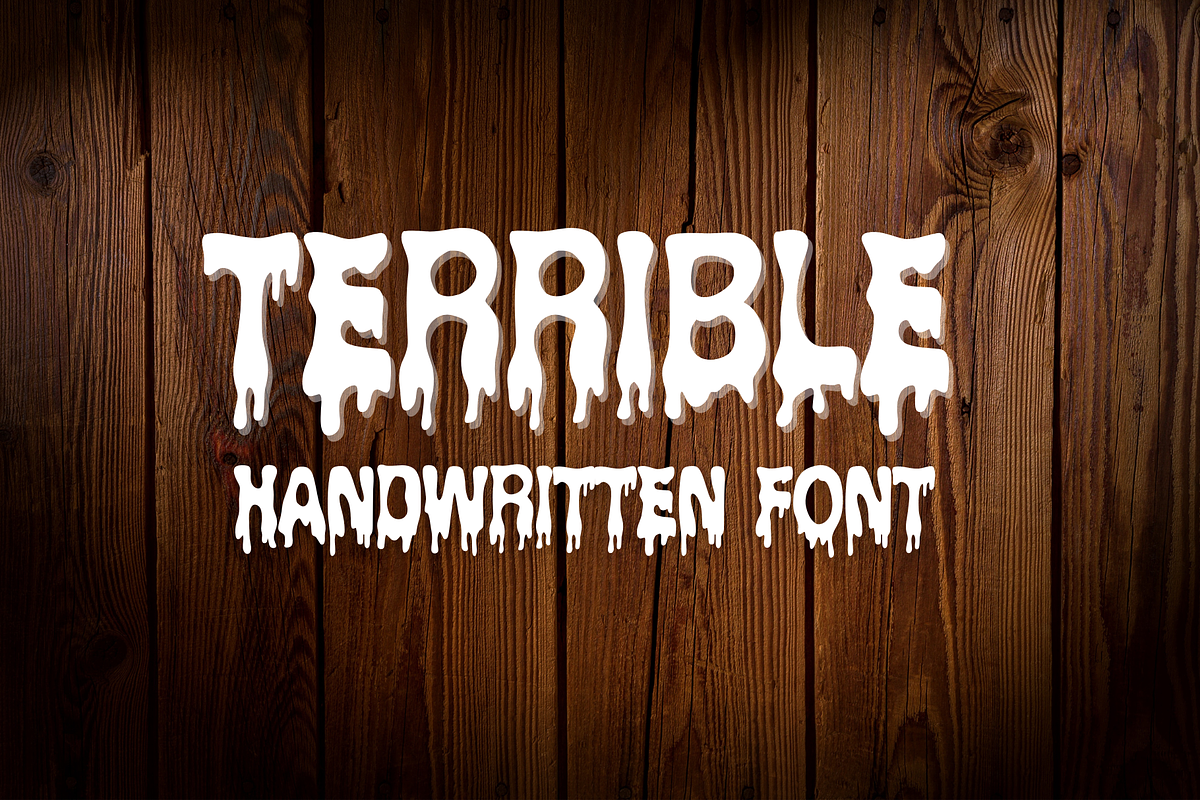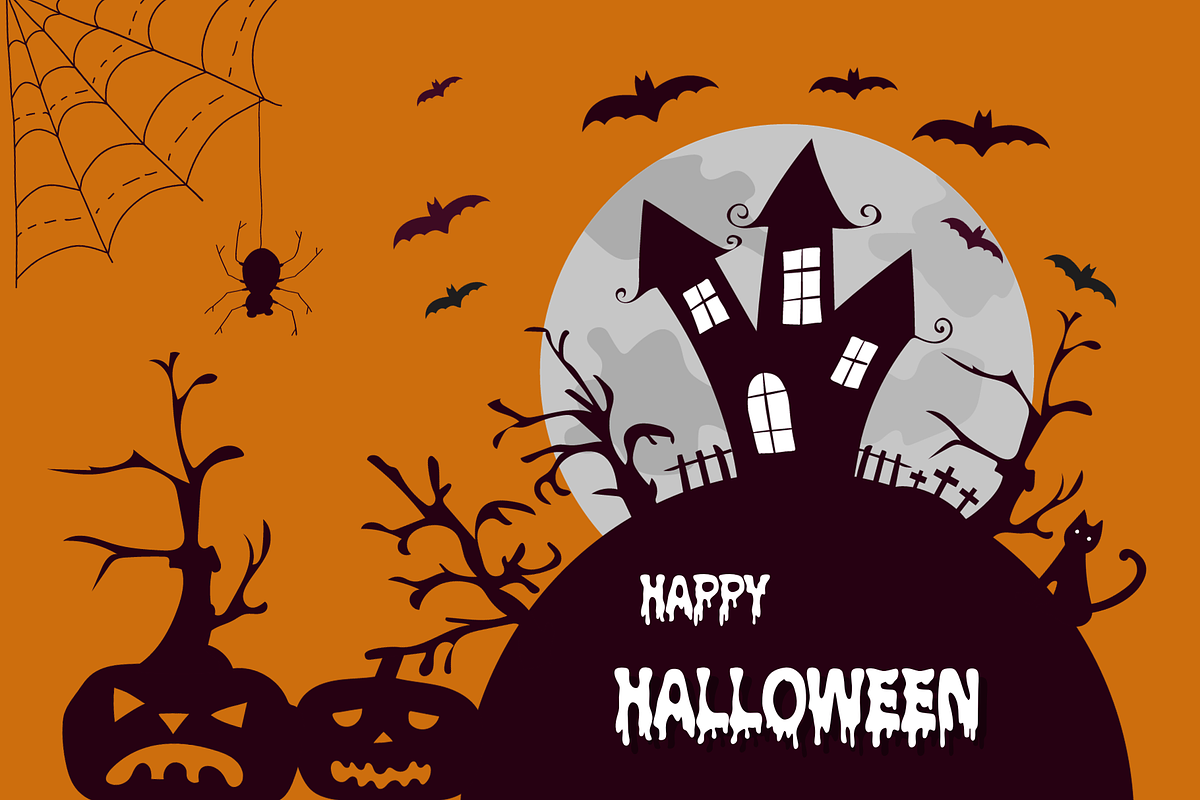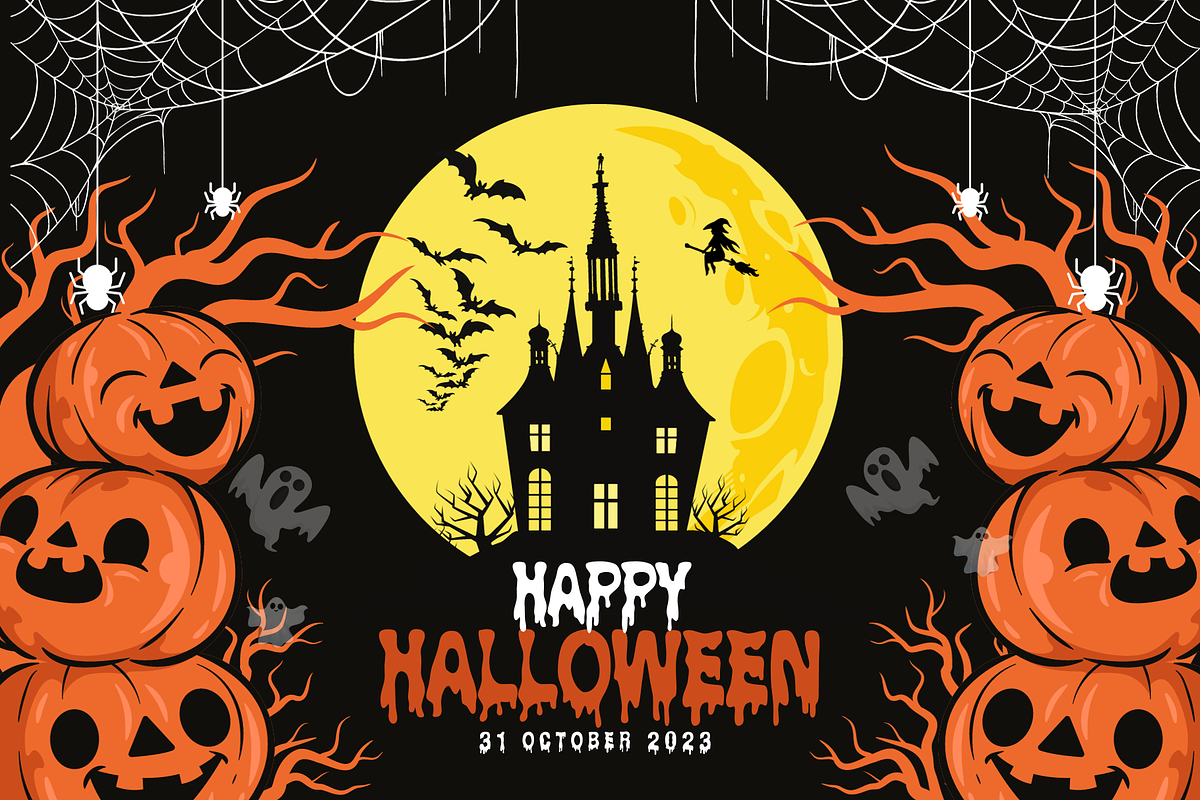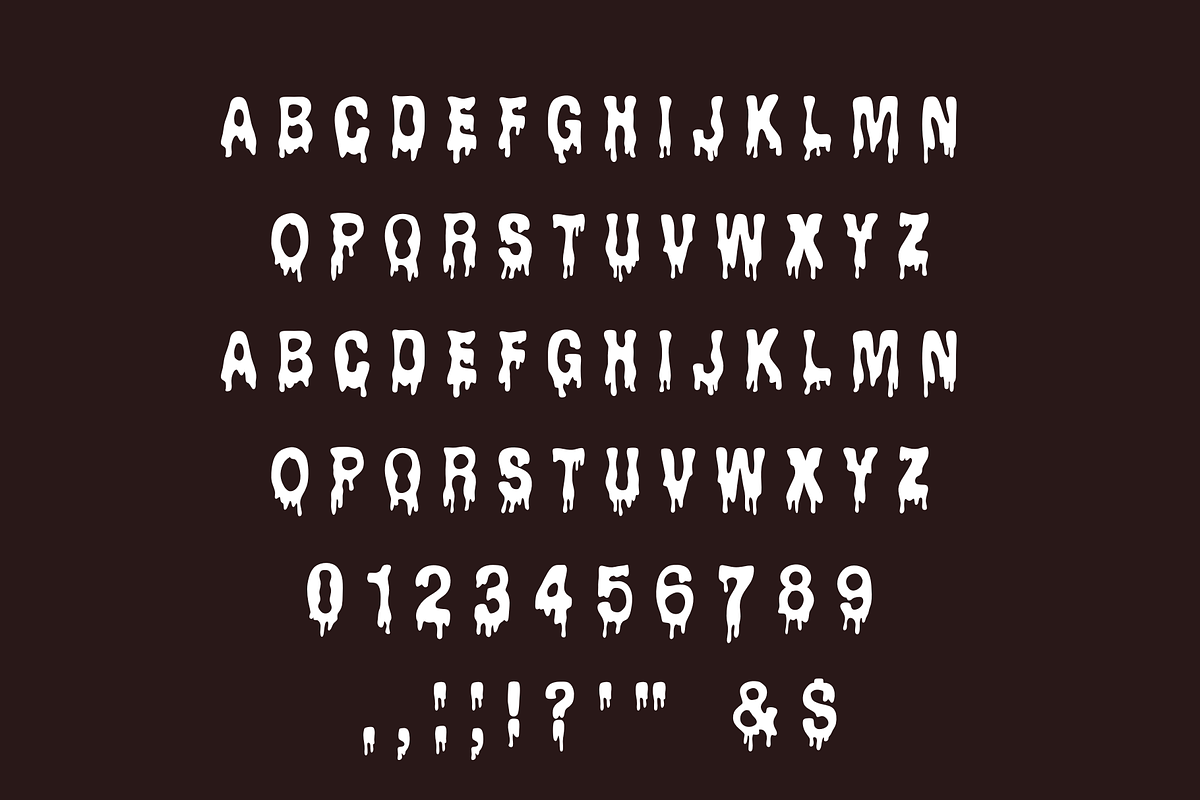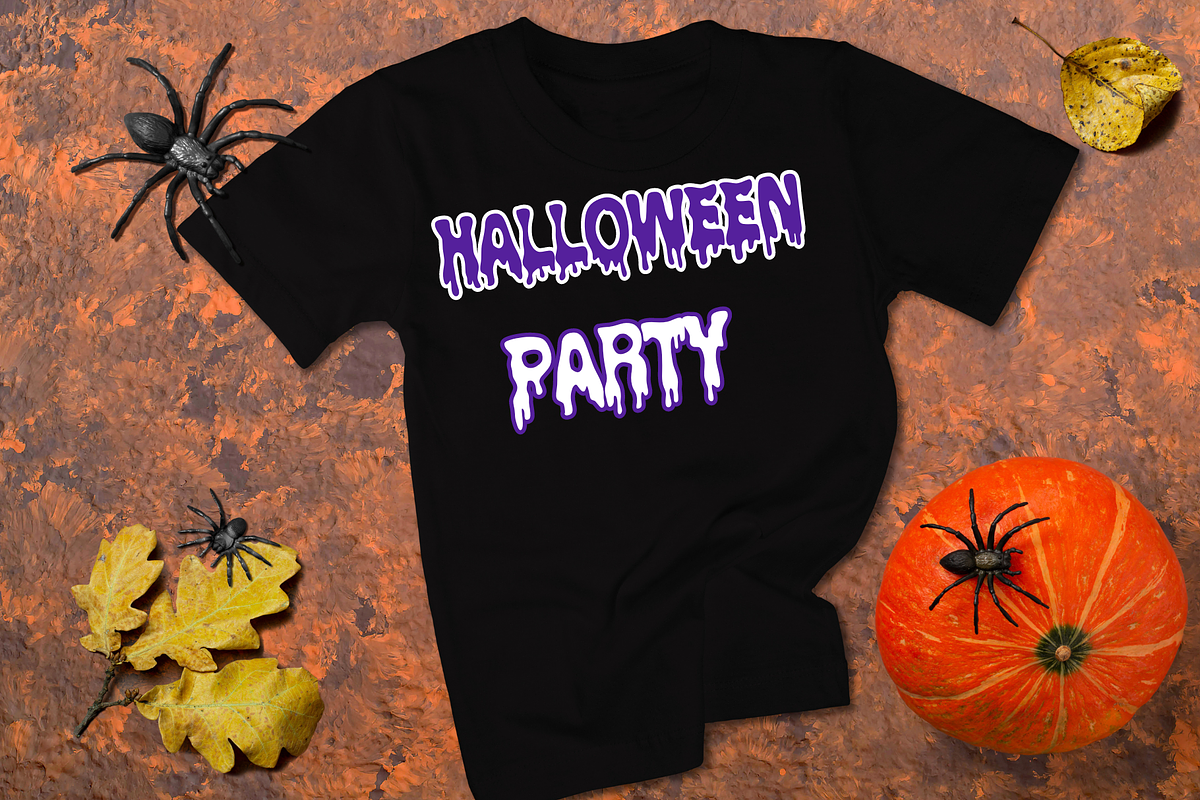
Terrible| Handwritten font
Introducing our latest masterpiece: a uniquely crafted "Trerible Font" that transcends traditional typography. Imagine the fusion of grunge and horror, melding seamlessly to create a typeface that evokes feelings of suspense and intrigue. Each letter appears as if melting, mimicking the eeriness of a classic horror scene or the edginess of urban street art. This font is not just another addition to your design toolbox; it's a statement. Perfect for those looking to make a bold impression, whether you're designing a spine-chilling Halloween invitation, a rebellious band poster, or simply wish to stand out from the crowd. Dive into the world of gothic melt and creepy calligraphy with our dripping font, and let your designs ooze originality!